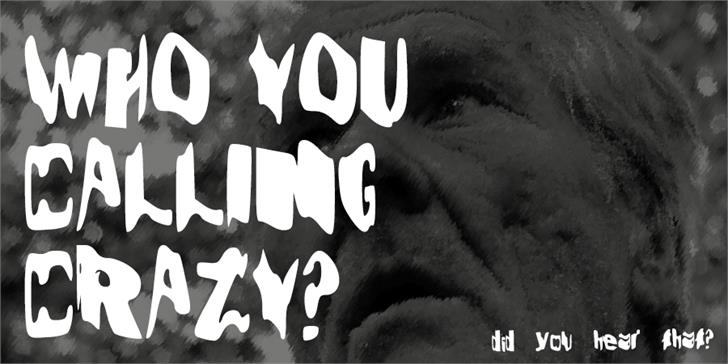
The Demented Font: A Unique Design Born from Creativity and Experimentation
In the world of typography, fonts are the building blocks of visual communication. With thousands of fonts available, designers are constantly on the lookout for unique and creative ways to express themselves. One such font that has gained attention in recent years is the Demented Font, a distinctive and eye-catching typeface that has been described as “messed up” and “drunk looking.” In this article, we’ll explore the story behind the Demented Font, its design process, and what makes it so special.
The Birth of Demented Font
The Demented Font was created with a clear intention: to design a font that looked like it was made by someone who was, well, demented. The creator of the font, who wishes to remain anonymous, set out to create a typeface that was unlike anything else out there. They started with Franklin Gothic, a classic sans-serif font known for its clean lines and elegant appearance. However, the creator of Demented Font had other plans.
“I wanted to make a messed up, drunk looking font so I used Franklin Gothic as a base and added my own touches,”
they explained in an interview. And added their own touches they did. The result is a font that is equal parts fascinating and bizarre.
Design Process
The design process for Demented Font involved a lot of experimentation and creativity. The creator started by taking the basic structure of Franklin Gothic and then deliberately introducing imperfections and irregularities. This included varying the width and height of the letters, making some of them lean or wobble, and adding serifs in unexpected places.
The goal was to create a font that looked like it was drawn by someone who was having a bit too much fun with their design tools. The result is a font that is playful, mischievous, and utterly unique.
What Makes Demented Font Special
So what sets Demented Font apart from other fonts out there? For one, its sheer audacity. In an era where fonts are often designed to be sleek and professional, Demented Font is a breath of fresh air. It’s a font that doesn’t take itself too seriously and isn’t afraid to have a little fun.
Another factor that makes Demented Font special is its versatility. Despite its unusual appearance, the font is surprisingly legible, making it suitable for use in a wide range of design projects. Whether you’re looking to add some whimsy to a children’s book or create a bold statement for a poster, Demented Font is up to the task.
Use Cases for Demented Font
Demented Font may not be the first choice for every design project, but it’s certainly a font that can add a lot of character to the right project. Here are a few use cases where Demented Font might be a good fit:
- Children’s Books: Demented Font’s playful and whimsical nature makes it a great choice for children’s books, comics, and other materials aimed at a younger audience.
- Posters and Flyers: The font’s bold and eye-catching appearance makes it perfect for posters, flyers, and other attention-grabbing materials.
- Branding and Packaging: For brands that want to stand out from the crowd, Demented Font can add a touch of personality and whimsy to packaging and branding materials.
The Demented Font is a true original, a font that has been crafted with creativity and a sense of humor. Its unique appearance and versatility make it a great choice for designers looking to add a bit of personality to their work. Whether you’re a seasoned designer or just starting out, Demented Font is definitely worth checking out.
So if you’re looking for a font that will make your design stand out from the crowd, look no further than Demented Font. With its messed up, drunk looking charm, it’s sure to bring a smile to the faces of your audience.